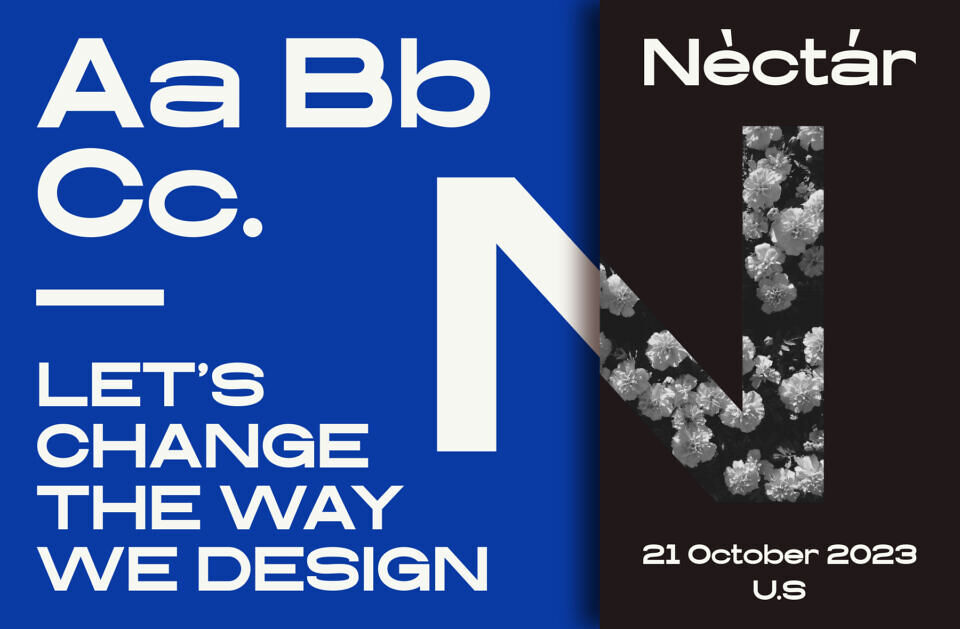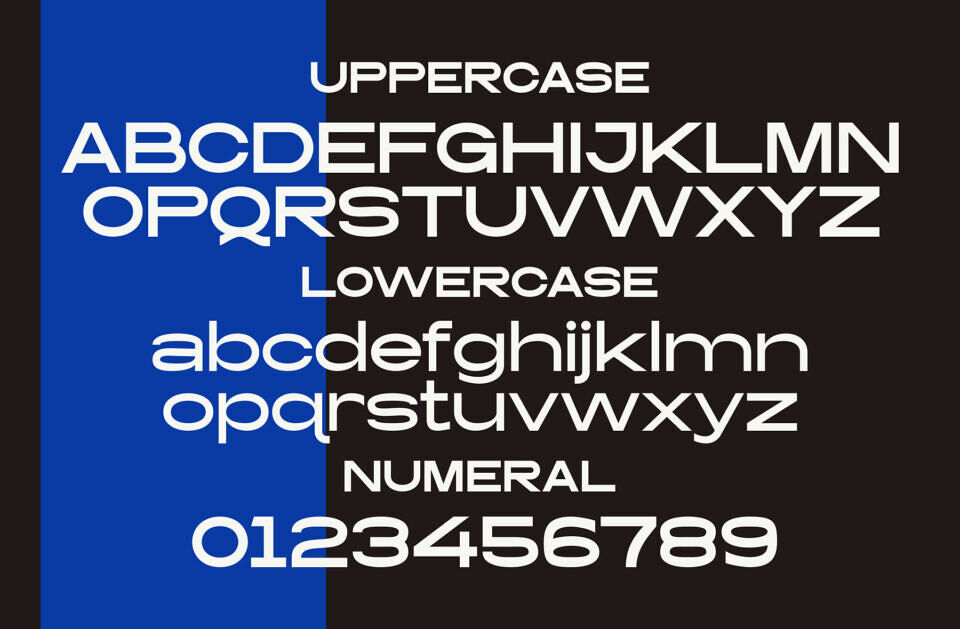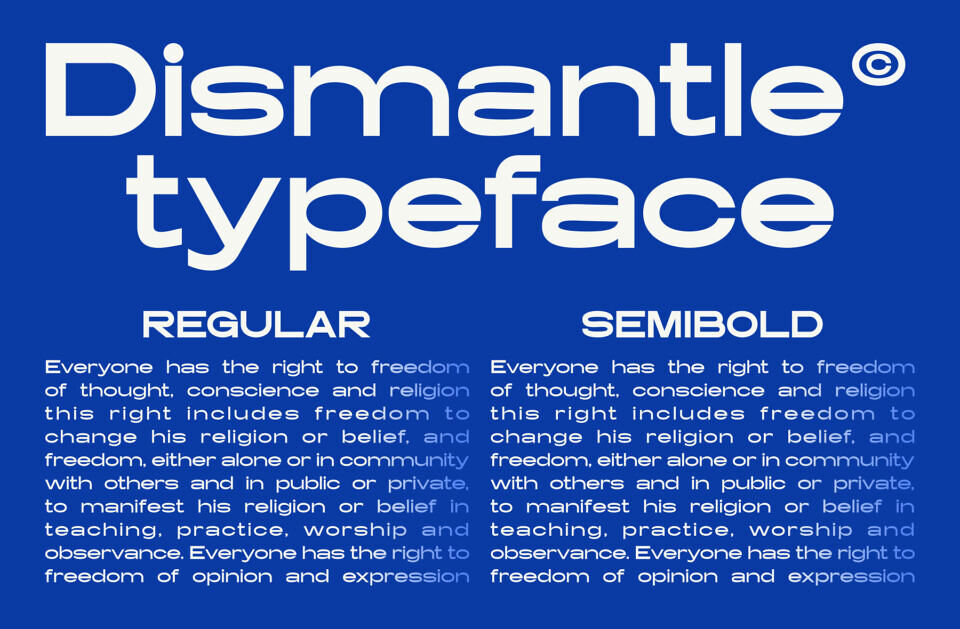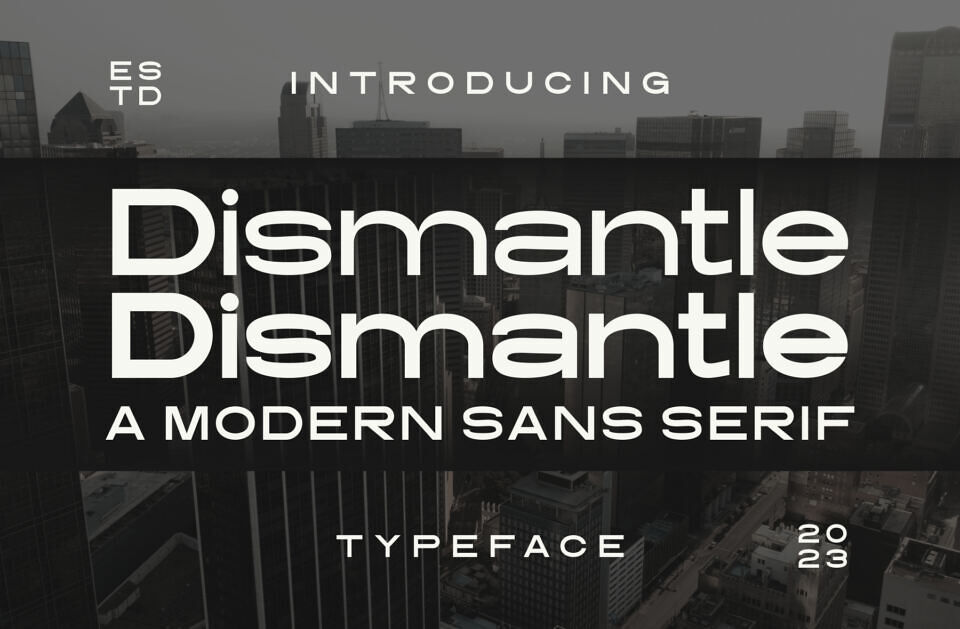
Dismantle Font
Introducing Dismantle, a Modern and authentic Sans Serif display font. The font is suitable for any branding project like logo, Template Design, Product and many more. outstanding in a wide range of contexts.